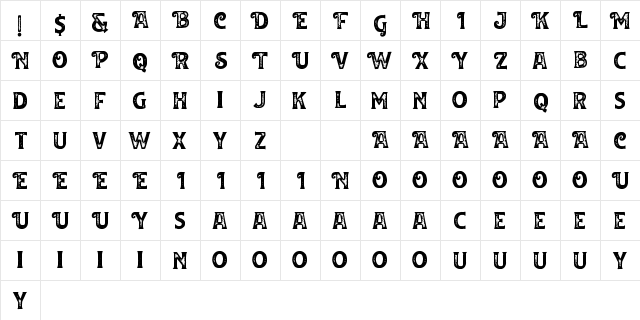
Huvet Rough Regular
Huvet Rough embraces imperfection — its rough, textured character adds raw authenticity to designs that want to feel lived-in and unconventional.
Suited to punk-influenced zines, underground music branding, streetwear, and raw, anti-corporate design.
Pro Tip: Pair Huvet Rough with intentionally raw or lo-fi design elements. Fighting against it with overly polished surroundings will undermine its personality.